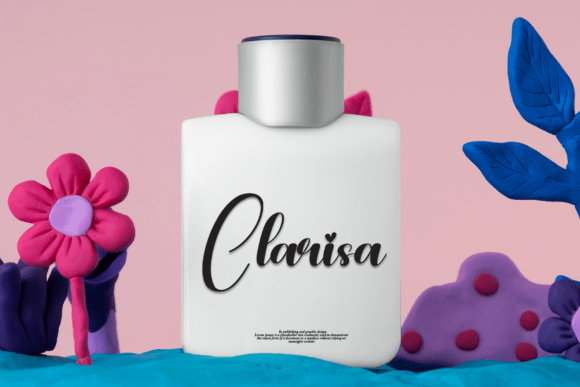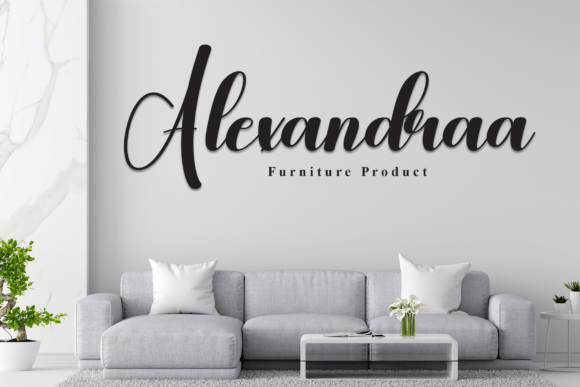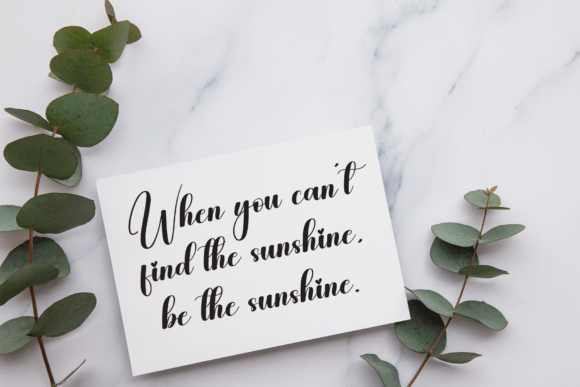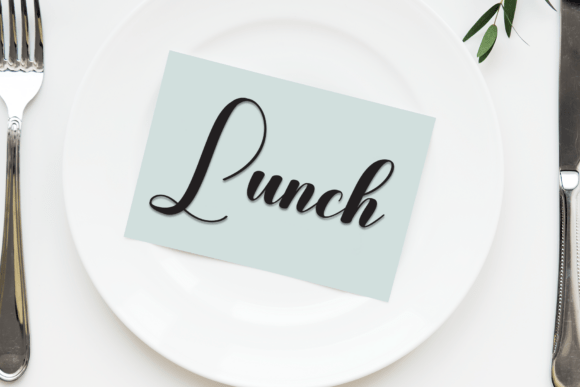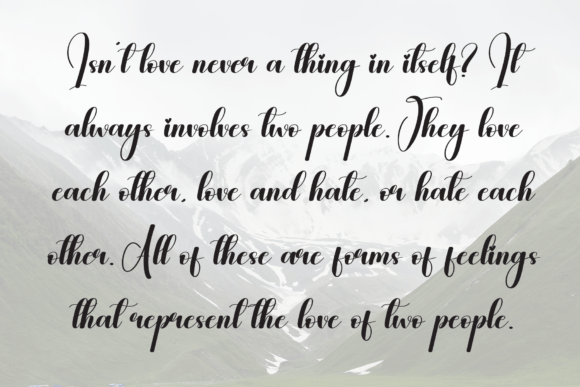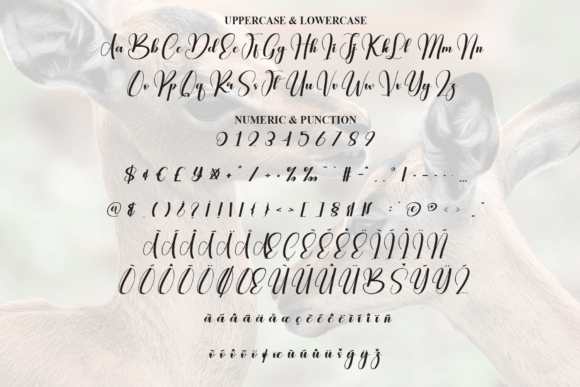
Introducing Animal Font: Elevate Your Designs with Artistic Flair and Contemporary Elegance
In the world of typography, few fonts manage to capture the perfect blend of artistic expression and modern sophistication. Animal Font is one such exceptional typeface that brings a unique combination of fluid brush strokes, dynamic curves, and expressive letterforms to the table. Designed to emulate the elegance of hand-painted calligraphy with a contemporary twist, Animal Font is an ideal choice for designers and crafters looking to add a touch of creativity and sophistication to their projects.
The Artistic Essence of Animal Font
Animal Font stands out with its stylish script design that exudes an air of artistic flair. Each letterform is carefully crafted to showcase fluid brush strokes that give the font a natural, hand-painted feel. The dynamic curves and expressive characters add a level of vibrancy and personality to the font, making it perfect for designs that require a bit of flair and elegance.
One of the key features that set Animal Font apart is its ability to capture the essence of traditional calligraphy while infusing it with a modern aesthetic. This blend of old and new makes the font incredibly versatile, allowing it to be used in a wide range of design applications, from logos and invitations to packaging and social media graphics.
Whether you’re a professional designer or a crafty DIY enthusiast, Animal Font offers endless possibilities for creative expression. Here are some of the ideal applications for this stunning font:
- Logos: Create a memorable brand identity with a logo that stands out. Animal Font’s unique and stylish letterforms can help your brand make a lasting impression.
- Invitations: Add a touch of elegance and sophistication to your event invitations. Whether it’s a wedding, birthday party, or corporate event, Animal Font can help set the tone for a memorable occasion.
- Packaging: Elevate your product packaging with a font that exudes quality and style. Animal Font can help your product stand out on store shelves and make a lasting impression on customers.
- Social Media Graphics: Create eye-catching social media graphics that reflect your brand’s personality. From Instagram posts to Facebook banners, Animal Font can help you create engaging and shareable content.
Why Choose Animal Font?
With so many fonts available, why choose Animal Font for your design projects? Here are a few compelling reasons:
- Visual Impact: Animal Font delivers a significant visual impact with its unique and expressive letterforms. It’s perfect for designers who want to create stunning designs that capture attention.
- Versatility: This font is incredibly versatile and can be used in a wide range of design applications. Whether you’re working on a logo, invitation, or social media graphic, Animal Font can help you achieve your design goals.
- Contemporary Elegance: Animal Font brings a touch of contemporary elegance to any design. Its modern aesthetic ensures that your designs look fresh and up-to-date.
Tips for Using Animal Font Effectively
To get the most out of Animal Font, here are a few tips to keep in mind:
- Pair it with Neutral Backgrounds: Animal Font really shines when paired with neutral backgrounds. This allows the font’s unique letterforms to take center stage and make a lasting impression.
- Experiment with Colors: Don’t be afraid to experiment with different colors and textures. Animal Font looks great in a variety of colors, from bold and bright to soft and pastel.
- Use it Sparingly: While Animal Font is incredibly versatile, it’s best used sparingly. Use it for headlines or key messages to create a lasting impression.
In conclusion, Animal Font is an exceptional typeface that brings a unique combination of artistic expression and modern sophistication to the table. Its fluid brush strokes, dynamic curves, and expressive letterforms make it perfect for designers and crafters looking to add a touch of creativity and elegance to their projects. With its versatility, visual impact, and contemporary aesthetic, Animal Font is sure to become a go-to choice for a wide range of design applications.